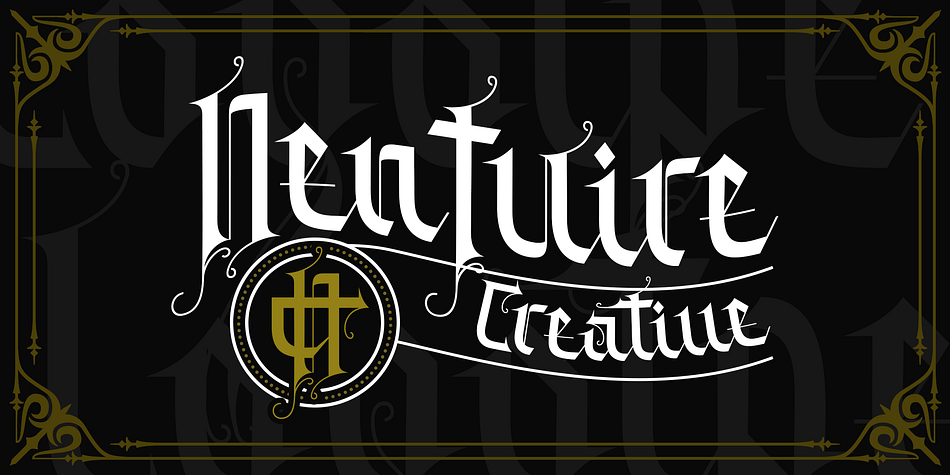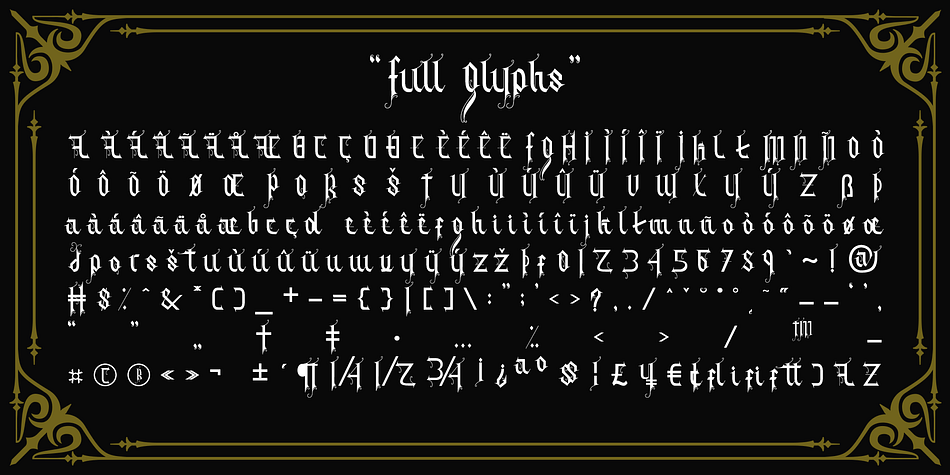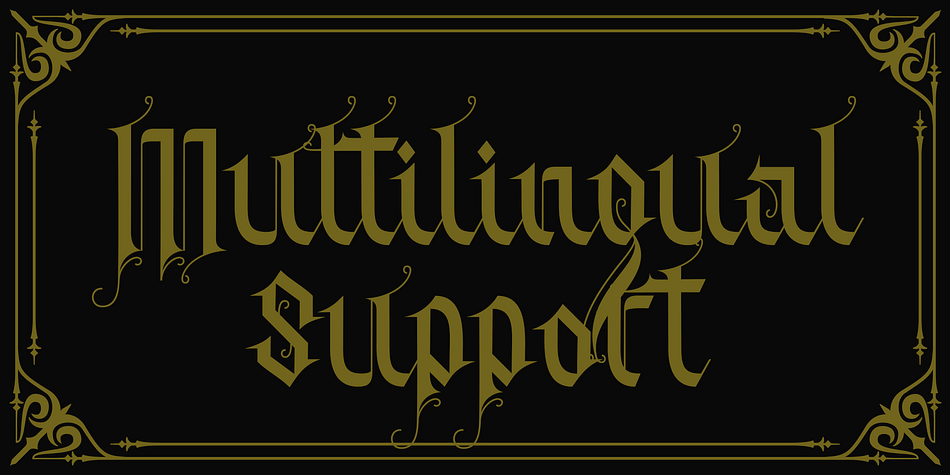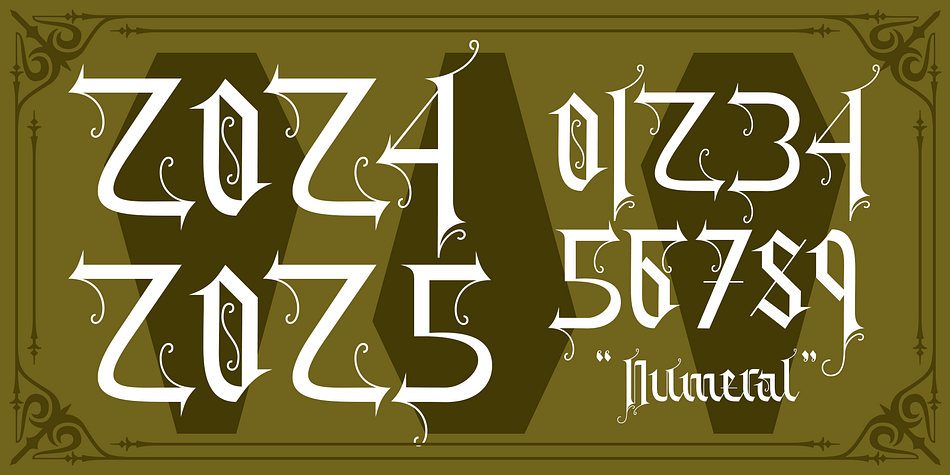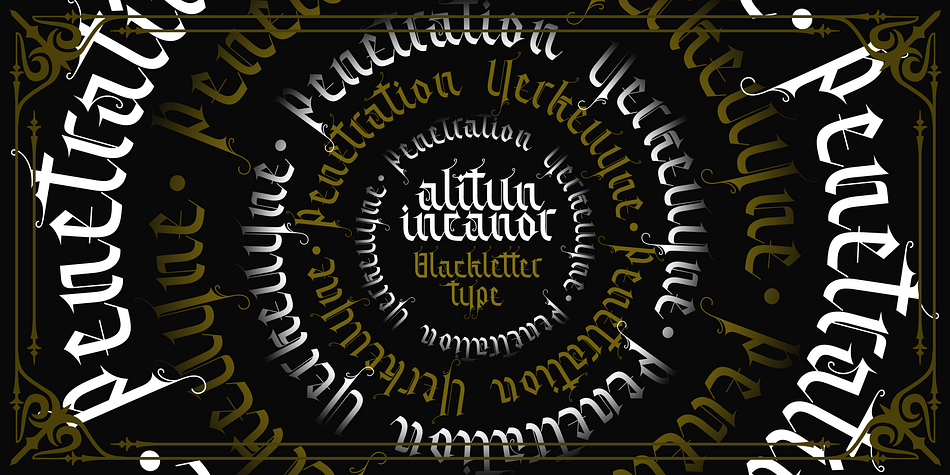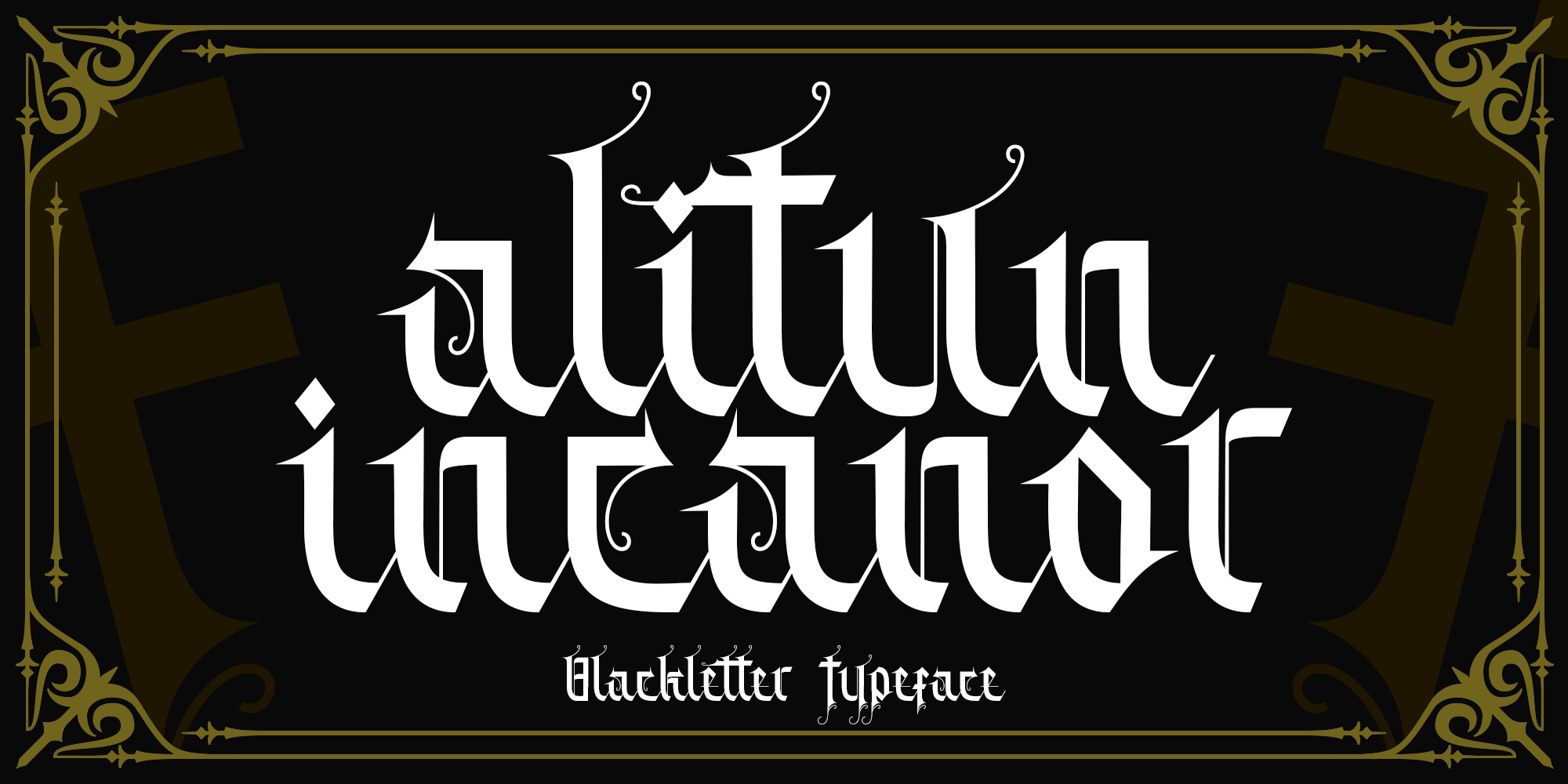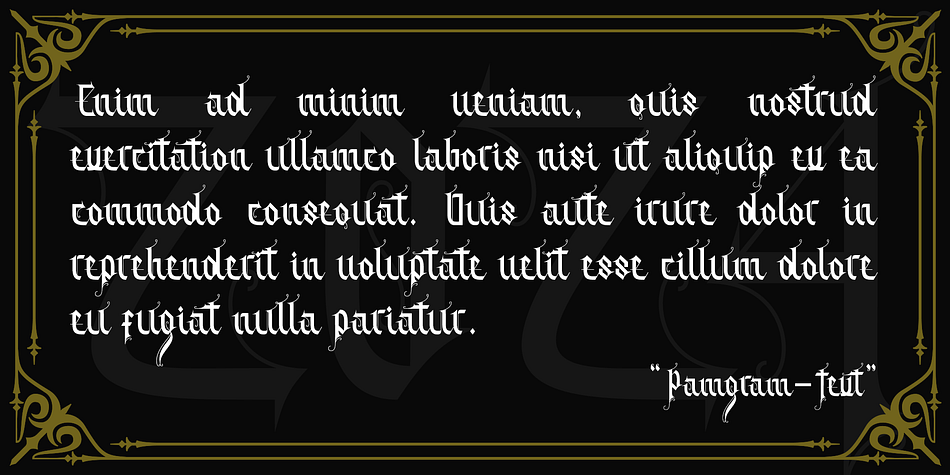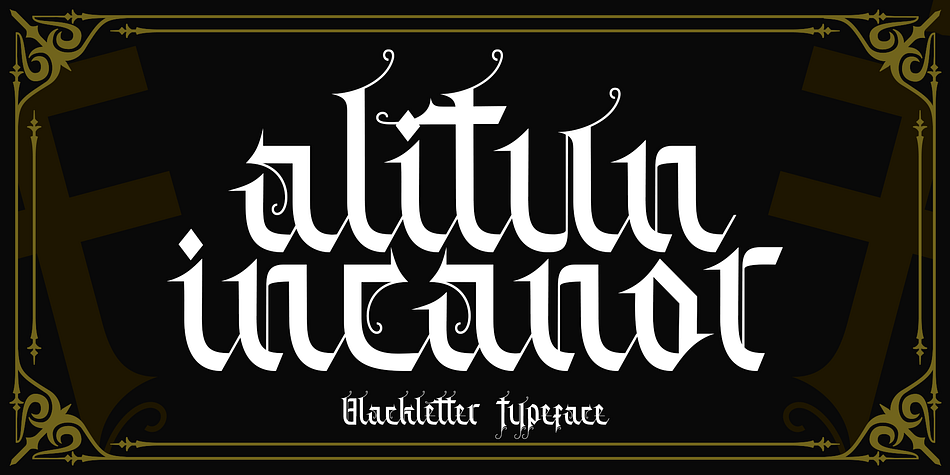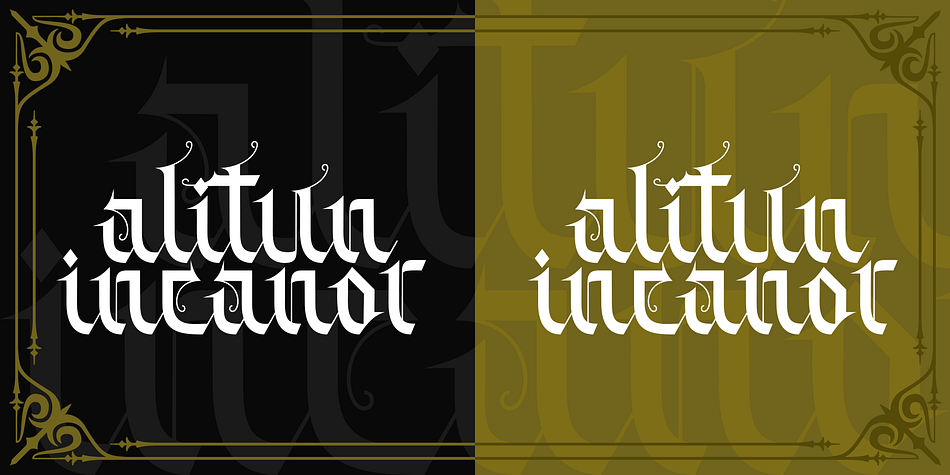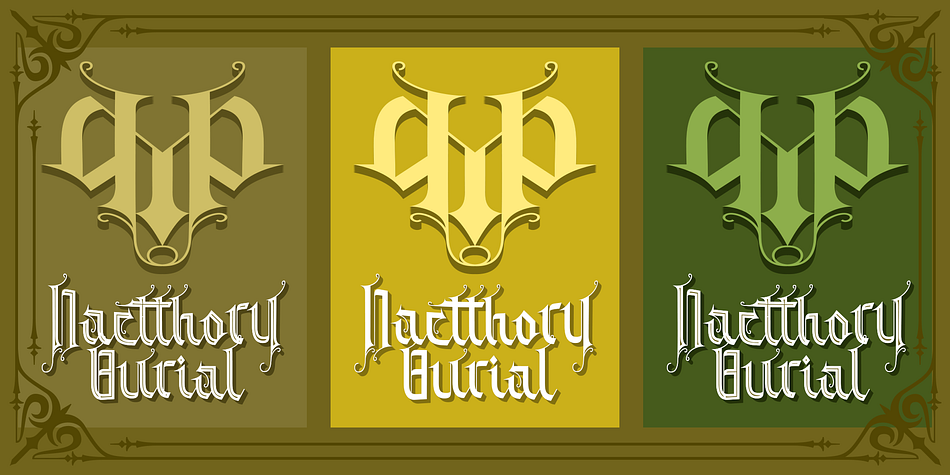
Alitun incanor
Alitun incanor is a blackletter font family published by propertype.
The Alitun incanor font is inspired by Gothic style typography and calligraphy. It has clean, sharp lines making it easier to read by combining old and new. If you are looking for a font with these features, Alitun incanor can meet your needs.
This font is equipped with natural calligraphy - characteristic of gothic synthesis and multilingual support.Font; ideas for headlines, flayers, greeting cards, product packaging, book and magazine covers, logo types, clothing designs, tattoo designs, album covers.